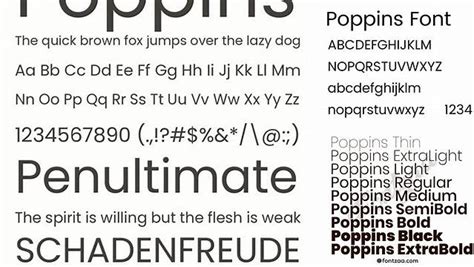
Unlock the Power of Google Fonts: A Comprehensive Guide!
What is Google Fonts?
Google Fonts is a collection of free, open-source fonts that were created by Google. The fonts are available to download and use on any website or other online platform. Google Fonts has been around since 2010 and has grown to over 800 fonts. With such a wide selection of fonts, it can be difficult to know where to begin. If you want to make the most of Google Fonts, then this comprehensive guide is for you.
How to Select the Right Fonts
When selecting the right font for your project, there are a few things you should keep in mind. First, you should consider the purpose of the font. Is it for a website, an app, or a printed document? Different fonts work best for different purposes, so it’s important to select the one that best fits your needs. Second, you should consider the tone and style of the font. Google Fonts offers a wide range of font styles, from traditional serif fonts to modern sans-serif fonts. Select the one that best reflects the tone of your project. Finally, consider the readability of the font. Make sure that the font is legible and easy to read. By considering these factors, you can ensure that you select the font that is perfect for your project.
Tips and Tricks for Using Google Fonts
When using Google Fonts, there are a few tips and tricks that can help you make the most of them. First, try combining multiple fonts. Google Fonts has a wide selection of fonts, and combining two or three can create a unique and interesting design. Second, use font weights to add emphasis to certain elements. For example, you can use bold or italic to emphasize a heading or a call to action. Third, use font families to create a consistent design. Google Fonts offers font families with multiple weights and styles, so you can ensure that your design has a consistent look and feel.
Best Practices for Using Google Fonts
When using Google Fonts, it’s important to follow best practices to ensure that your design looks great and performs well. First, make sure to use the right font size. If your font is too small, it can be difficult to read. Second, use web fonts instead of system fonts. Web fonts are optimized for the web and can help improve page load times. Finally, make sure to use web safe fonts when possible. Web safe fonts are fonts that are pre-installed on most computers and can be used without needing to download them.
Examples of Google Fonts in Action
To get an idea of how Google Fonts can be used in your projects, here are a few examples. For websites, you can use Google Fonts to create a unique and modern look. For apps, you can use a combination of font weights to create a bold and attention-grabbing design. For printed documents, you can use a classic serif font to create a timeless and professional look. Google Fonts can be used in a variety of ways and is a great way to add a unique touch to your projects.
The Benefits of Using Google Fonts
There are many benefits to using Google Fonts in your projects. First, they’re free and open-source, so you don’t have to worry about licensing fees. Second, they’re optimized for the web, so they can help improve page load times. Third, they’re easy to install and use, so you can get started quickly. Finally, Google Fonts offers a wide selection of fonts, so you can find the perfect font for your project.
My Point of View
Google Fonts is a great resource for designers and developers. With its wide selection of fonts, it’s easy to find the perfect font for any project. It’s also easy to install and use, so you can get started quickly. And since it’s free and open-source, you don’t have to worry about licensing fees. Overall, Google Fonts is a great resource that can help you unlock the power of fonts.
If you’re looking for a way to add a unique and modern touch to your projects, then Google Fonts is the perfect choice. With its wide selection of fonts and easy installation process, you can start using Google Fonts in no time. So don’t wait—unlock the power of Google Fonts today!